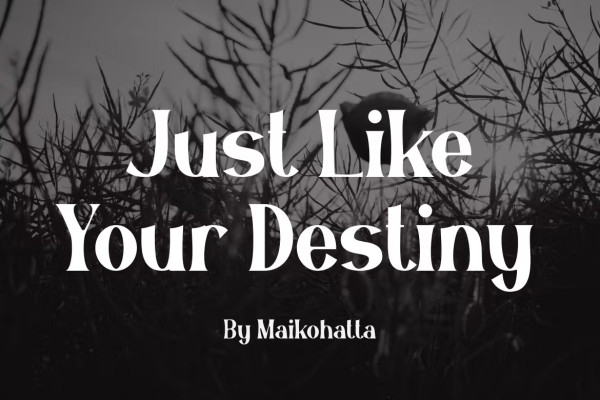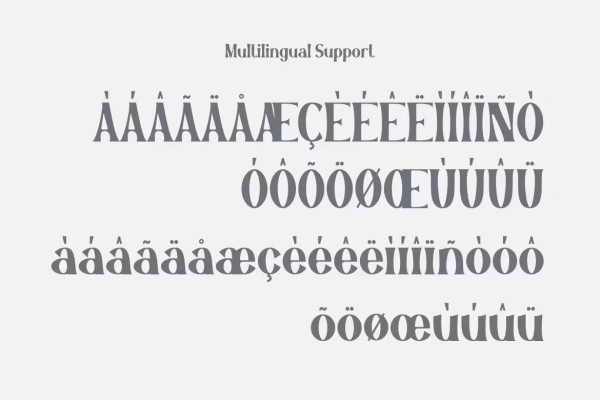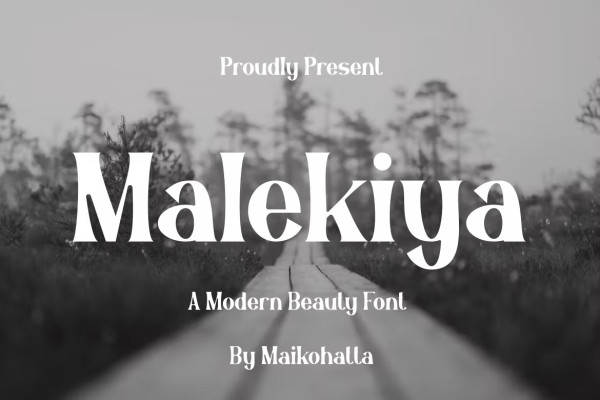
Malekiya Font
Malekiya Font – Modern Font is a bold and authentic display font. The font is suitable for any branding projects such as cover, template design, etc. She is exceptional in a wide range of contexts